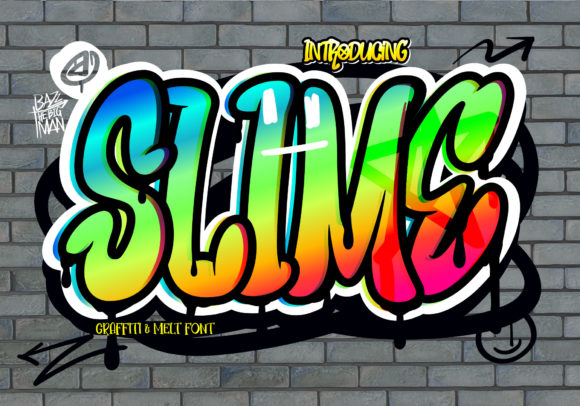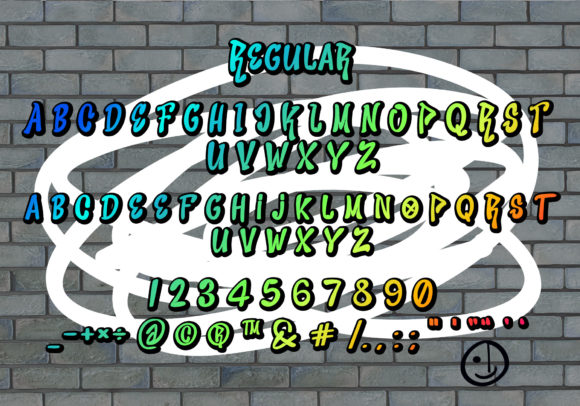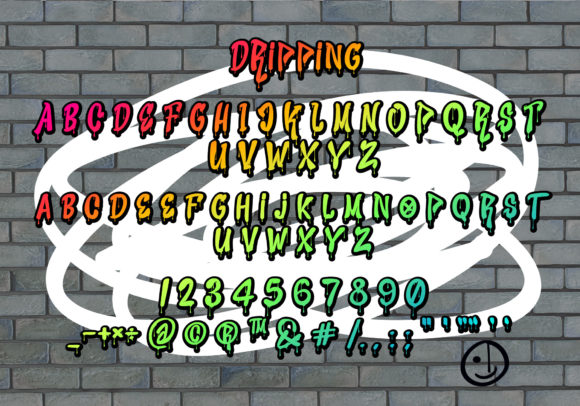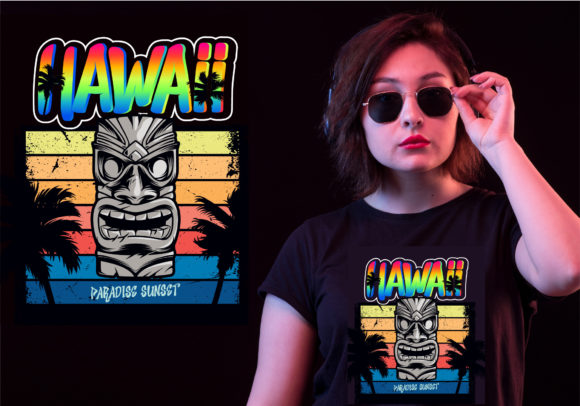
Slime Font
About the Slime Font
Experience the unique personality of Slime Font, a font designed for impact. Slime is a cool and graffiti styled display font, featuring a street art vibe. This font is suitable for designs such as t-shirts, sportswear, logos, advertisements, clothing, and more.
Slime Font Usage Examples
Slime Font Example